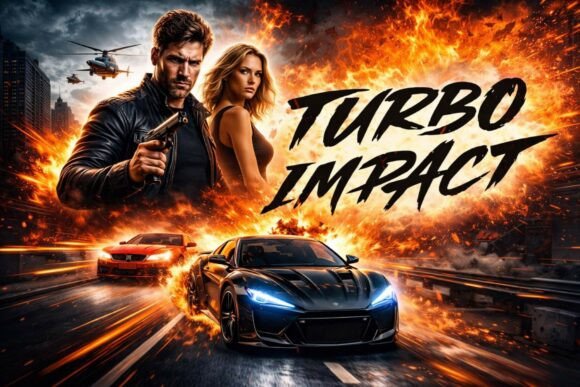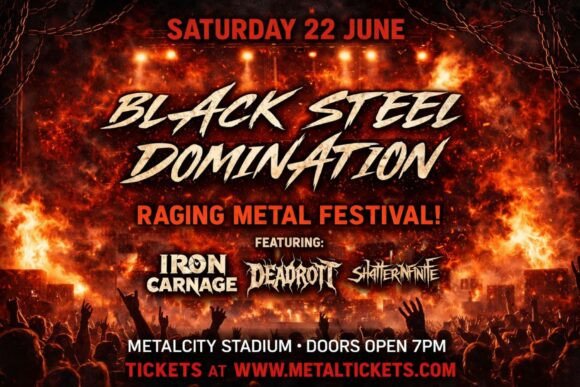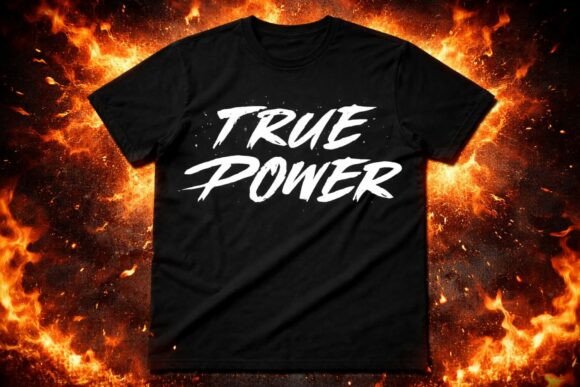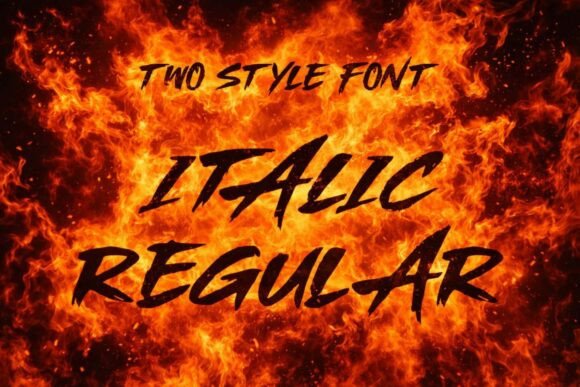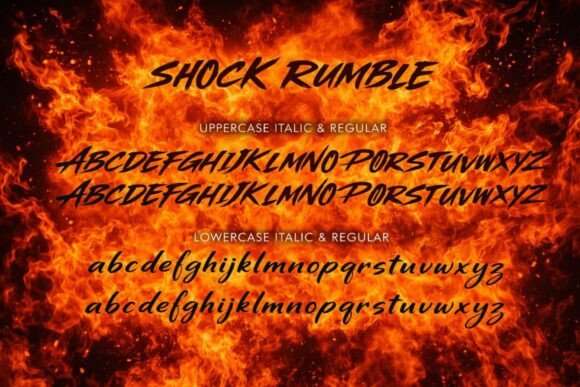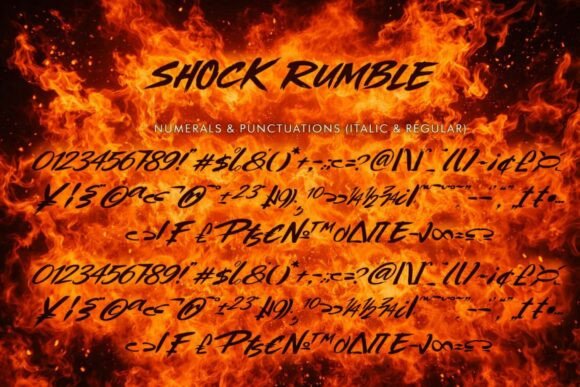
Introduction to Shock Rumble Font
“Shock Rumble” is a unique and elegant brush font.
It features regular and italic styles, uppercase and lowercase letters, numerals, punctuations, and multilingual support It’s perfect for movie titles, metal concerts, advertisements, logos, stickers, tattoos, prints, banners, branding, social media, YouTube, business branding, and more.
Key Features of Shock Rumble Font